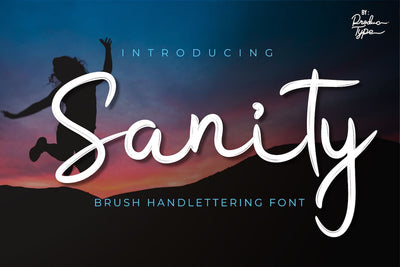
Sanity
Sanity is a flowing and round lettered handwritten font, created with the help of a paint brush. It looks fabulous in a variety of design ideas, both formal and informal.
This font will turn any creative idea into a true piece of art, this font is perfect for strong text with displays for a wide variety of branding, advertising, posters, banners, packaging, headlines, outdoor activity, websites, logo design, and more.